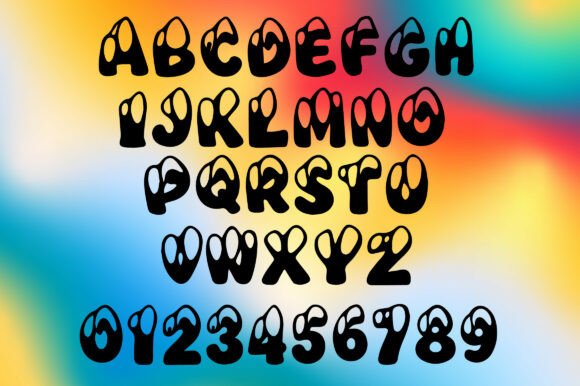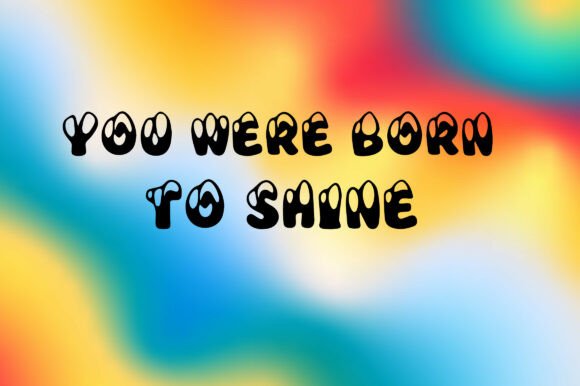
Unleash the Spook: Exploring the Creepy Paw Font
Are you on the hunt for a font that will add a dash of spookiness and playfulness to your designs? Look no further than the Creepy Paw Font. This bold, decorative display font is perfect for a variety of projects, from Halloween designs and pet-themed projects to posters, branding, and fun standout titles. In this article, we’ll dive into the details of the Creepy Paw Font and explore its uses, features, and benefits.
What is Creepy Paw Font?
Creepy Paw is a unique and eye-catching font that boasts a spooky, drippy, paw-inspired look. Its chunky, rounded shapes and playful creepy details make it a standout in the world of typography. The font’s design is inspired by the idea of a paw print, but with a creepy twist that makes it perfect for Halloween and other spooky-themed projects.
Key Features of Creepy Paw Font
- Bold and Decorative: Creepy Paw is a bold, decorative display font that’s designed to make a statement. Its chunky, rounded shapes and playful details make it perfect for headlines, titles, and other design elements that need to stand out.
- Spooky and Playful: The font’s spooky, drippy look is balanced by its playful details, making it perfect for projects that require a touch of whimsy and fun.
- Paw-Inspired: The font’s design is inspired by the idea of a paw print, making it perfect for pet-themed projects and designs.
- Versatile: Creepy Paw can be used for a wide range of projects, from Halloween designs and posters to branding and fun standout titles.
Uses for Creepy Paw Font
Creepy Paw Font is a versatile font that can be used for a wide range of projects. Here are some ideas to get you started:
- Halloween Designs: Creepy Paw is perfect for Halloween designs, including invitations, posters, and social media graphics.
- Pet-Themed Projects: The font’s paw-inspired design makes it perfect for pet-themed projects, including pet store branding, pet accessories, and animal-themed designs.
- Posters and Flyers: Creepy Paw is a great font for posters and flyers that need to stand out. Its bold, decorative design makes it perfect for advertising and promotional materials.
- Branding: The font’s unique and eye-catching design makes it perfect for branding and logo design. Use it to create a memorable and distinctive brand identity.
Benefits of Using Creepy Paw Font
There are many benefits to using Creepy Paw Font in your designs. Here are a few:
- Unique and Eye-Catching: Creepy Paw is a unique and eye-catching font that’s sure to grab attention.
- Versatile: The font can be used for a wide range of projects, from Halloween designs to pet-themed projects.
- High-Quality: The font is designed to high-quality standards, ensuring that it looks great in any design.
Tips for Using Creepy Paw Font
Here are a few tips for using Creepy Paw Font in your designs:
- Use it Boldly: Creepy Paw is a bold font, so use it boldly. It’s perfect for headlines and titles that need to stand out.
- Experiment with Colors: The font looks great in a variety of colors, so experiment with different colors to find the one that works best for your design.
- Pair it with Other Fonts: Creepy Paw can be paired with other fonts to create a unique and interesting design. Try pairing it with a sans-serif font for a bold and playful look.
Creepy Paw Font is a unique and eye-catching font that’s perfect for designers and crafters who want to add a touch of spookiness and playfulness to their designs. Its bold, decorative design and paw-inspired look make it perfect for a wide range of projects, from Halloween designs and pet-themed projects to posters, branding, and fun standout titles. With its versatility, ease of use, and high-quality design, Creepy Paw is a great addition to any designer’s toolkit.